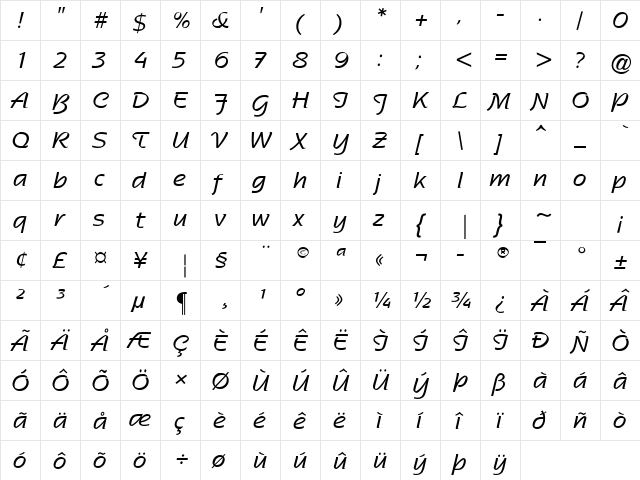
Sentimental Script SSi Regular
Design Context for Sentimental Script SSi Typeface
Sentimental Script SSi brings a calligraphic fluidity to the page — its connecting strokes and expressive curves give it an unmistakably human quality.
Font Pairing: Combine Sentimental Script SSi with a simple geometric sans for maximum contrast — the tension between flowing curves and clean structure is a classic typographic pairing.
Pro Tip: Pair Sentimental Script SSi with a clean sans-serif for supporting text. The contrast between fluid script and geometric structure creates an elegant typographic hierarchy.